Archibrazo - 13 Stable, 2 Variable Styles NEW!
- NEW RELEASE Archibrazo : Master type designer Rubén Fontana's Archibrazo serif family combines calligraphy with sculpture for maximum readability. Its seven weights optimise readability with sculptural wedge serifs and carved countershapes, and the Archibrazo Rotunda weight excels in uses such as titling, branding, and posters.
ESTD - 7 Styles Font Family by Henrik Kubel
- The inspiration for Estd. comes from the many examples of ‘heavy duty mono-linear’ inscriptions found on floor tiles in French churches in the Basque country. Built from multiple sources and now digitally reimagined, the typeface has an advanced character set supporting multiple languages and numerous font weights.
Variable Rotina NEW!
with Variable Swash & Script Styles
- Rotina is a sturdy modernist sans with a playful secret. Built on the solid foundation of a novel and clean utilitarian neo-grotesque, Rotina is an aesthetically cohesive Swiss army knife of tools that brings workhorse fundamentals, robust utility, and a heavy dose of aura to your daily design routine.
- Every letter in Rotina carries a quiet tension: part modernist engineering, part human gesture. The Roman and Italic styles provide a clean, functional base for branding, editorial, and digital applications. But with a single click, the extensive OpenType features and complimentary styles deliver instant personality. This duality is Rotina’s greatest asset and its conceptual engine. It’s a type system that can shift from a swiss poster to a handwritten note without losing its composure, designed for both clarity and charm. What begins as a study in restraint becomes a lesson in freedom–a workhorse with a wink. Rotina is built for the everyday, but always ready to break the routine.
Mier - 40 Styles Super Font Family $650
- Since the early 19th century and the appearance of latin sans serifs, structure and proportion were explored and combined in many ways before being solidified into canon. Mier’s shape, structure, and contrast relate equally to both geometric and grotesque canons. A few key glyphs vary (J, M, a, j, t, u, 6, 9, &), forming Mier A and Mier B, in order to highlight this duality.
Pilat - 48 Styles Super Family $1440
- Pilat is a constructed grotesque developed with a large range of weight and width variations. Its base structure, commonly called a ‘superellipse’ or ‘Lamé curve’, could be described as a circle trapped inside a box. Though the letter-shape predates the 20th century, it is mostly seen as an expression of the post World War II era—a glorifying combination of craft and technology.
CM - Frankfurt Sans - 8 Styles Font Family 10965579
- Frankfurt - a clean, display sans serif with great versatility. With multiple weights, this typeface can be used to create a wide range of designs looking to achieve a fun, modern, and youthful look. Europeans languages & Vietnamese.
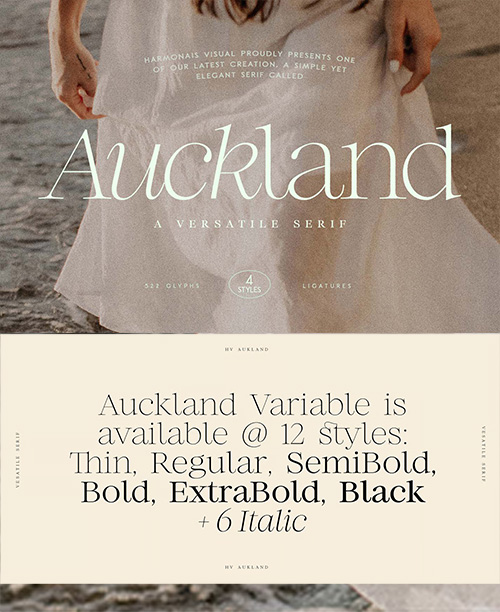
HV Auckland - 12 Styles Font Family
- Auckland Variable Serif is a highly versatile and elegant serif font that exudes a timeless charm. With its beautifully crafted curves and exquisite details, Auckland is the perfect choice for a wide range of design projects. Whether you need a font for display purposes, web design, or social media, Auckland will effortlessly elevate your creations to the next level. Its fancy curves add a touch of sophistication and uniqueness, making it a standout choice among other fonts.
CM - Golden Reverie - Nostalgic Script 292032682
- Golden Reverie – Nostalgic Script is a handcrafted script font inspired by timeless elegance, handwritten letters, and vintage editorial design. Soft, fluid, and expressive, it blends a natural handwritten feel with refined balance and readability. Designed for emotional storytelling and elegant branding, Golden Reverie works beautifully across weddings, editorials, logos, packaging, and refined visual identities.
CM - Wen Romun – Nostalgic Display Serif 292004479
- Wen Romun is a bold retro serif font inspired by nostalgic moments, vintage prints, and timeless typography. It blends classic letterforms with soft curves and playful swashes, creating a warm and expressive typeface that feels familiar yet confident. Designed for designers who love character-driven type, Wen Romun works beautifully for branding, posters, packaging, album covers, editorials, logos, and anything that needs a strong vintage presence with a modern touch.
- Introducing Zephyrus, our new condensed modern cyber font that's designed to take your designs to the next level! With its unique condensed squared feel, this font is perfect for anyone looking to add a modern and futuristic touch to their work.
- But we didn't stop there - we've also included a rounded version of Zephyrus, which softens the edges and provides a more approachable feel. This versatility means that you can use Zephyrus for a wide range of design projects, from logos and branding to websites and digital presentations.